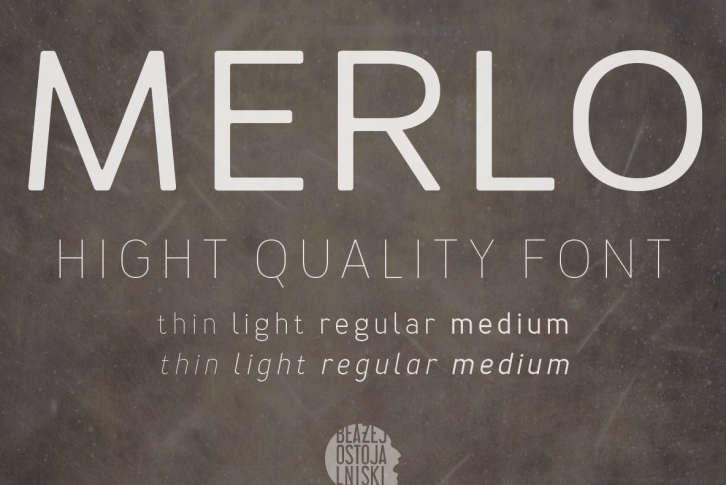
Font Merlo is characterized by eight different varieties – lower and uppercase characters. It is inspired by a You And Me Monthly published by National Magazines Publisher RSW „Prasa†that appeared from Mai 1960 till December 1973 in Poland.